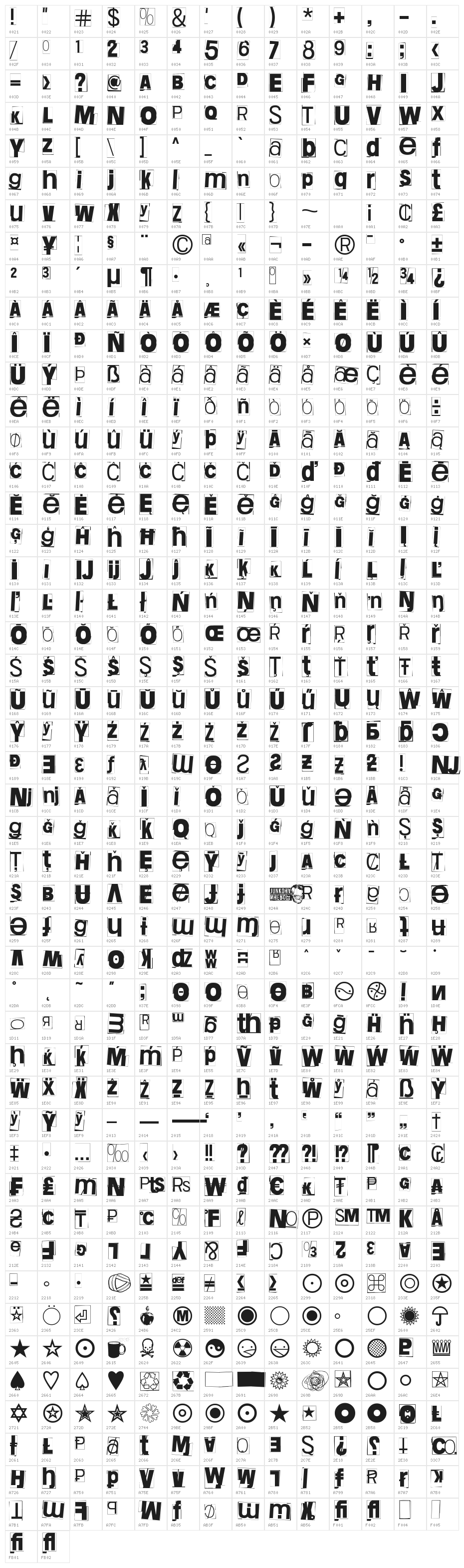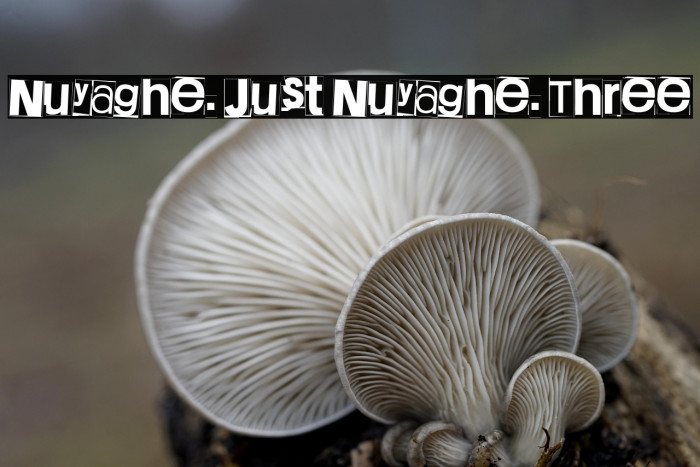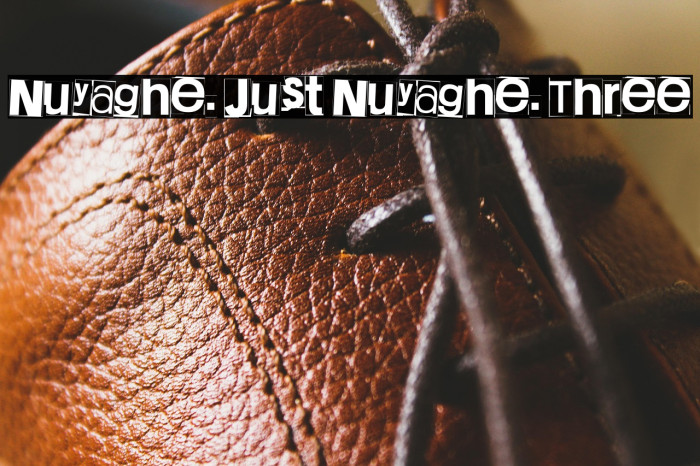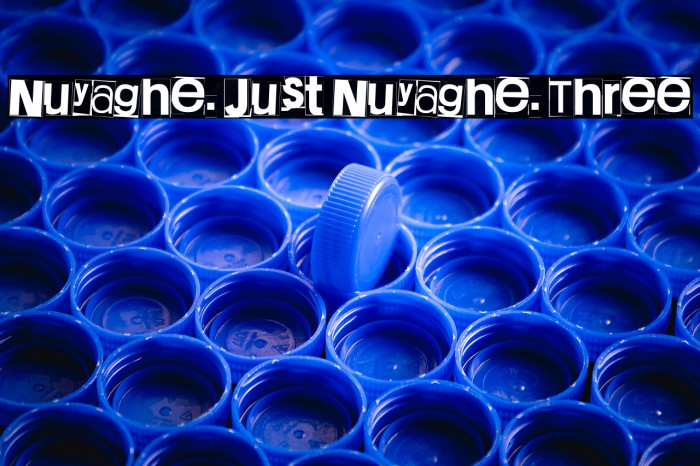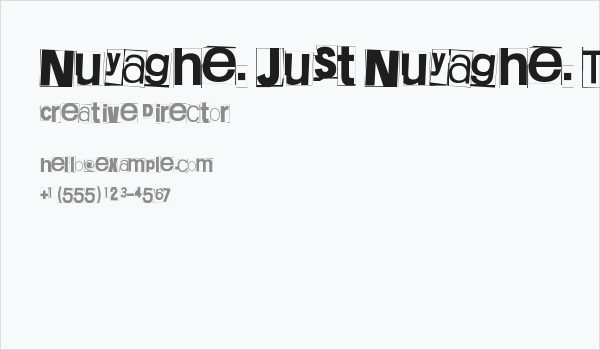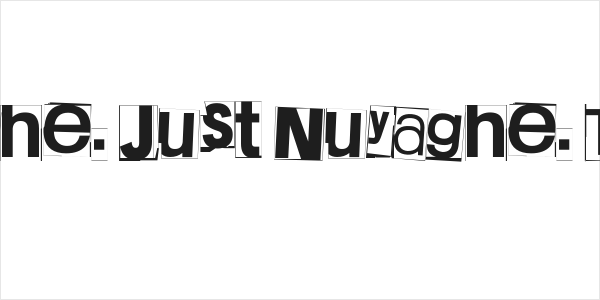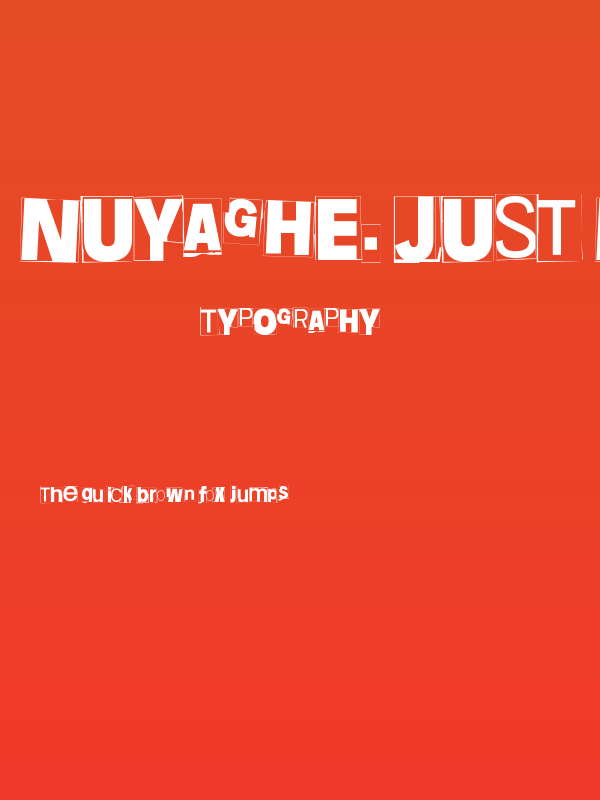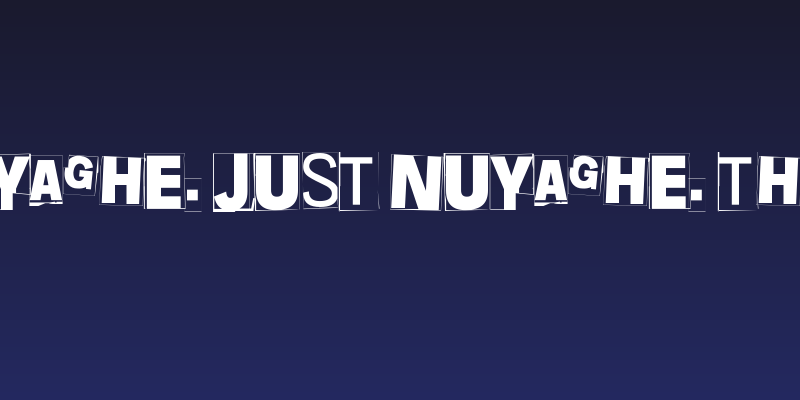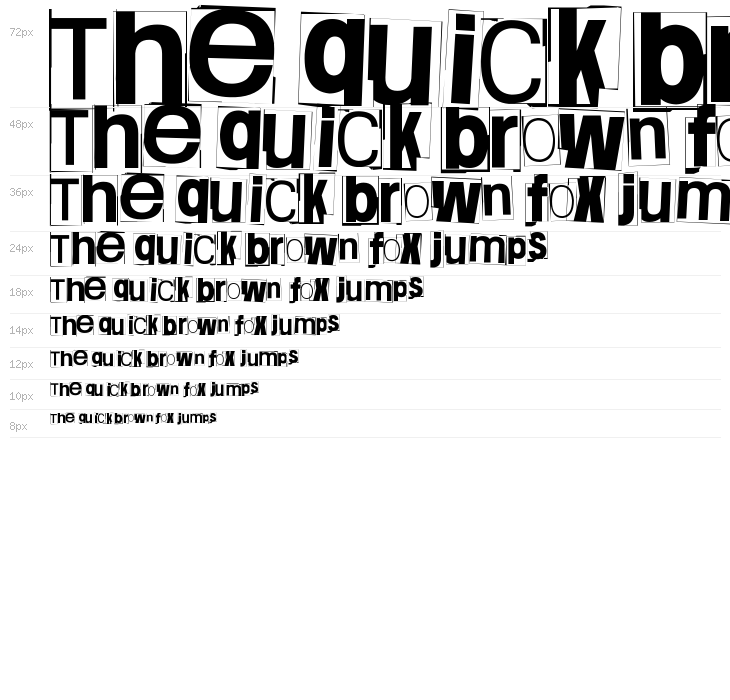
Nuyaghe. Just Nuyaghe. Three Font
Nuyaghe. Just Nuyaghe. Three Description
This font features a playful and eclectic style, reminiscent of cut-out letters from magazines or newspapers. Each character appears to be placed on a slightly tilted or uneven background, adding to the whimsical and dynamic feel. The letters are bold and have a strong presence, making them ideal for attention-grabbing designs. The mix of uppercase and lowercase letters, along with numbers and special characters, offers versatility in design applications. The overall appearance is both modern and retro, suitable for projects that require a unique and eye-catching aesthetic.
| Overall Style | Modern, Retro |
| Proposed Projects | Ideal for posters, album covers, creative branding, and editorial design. |